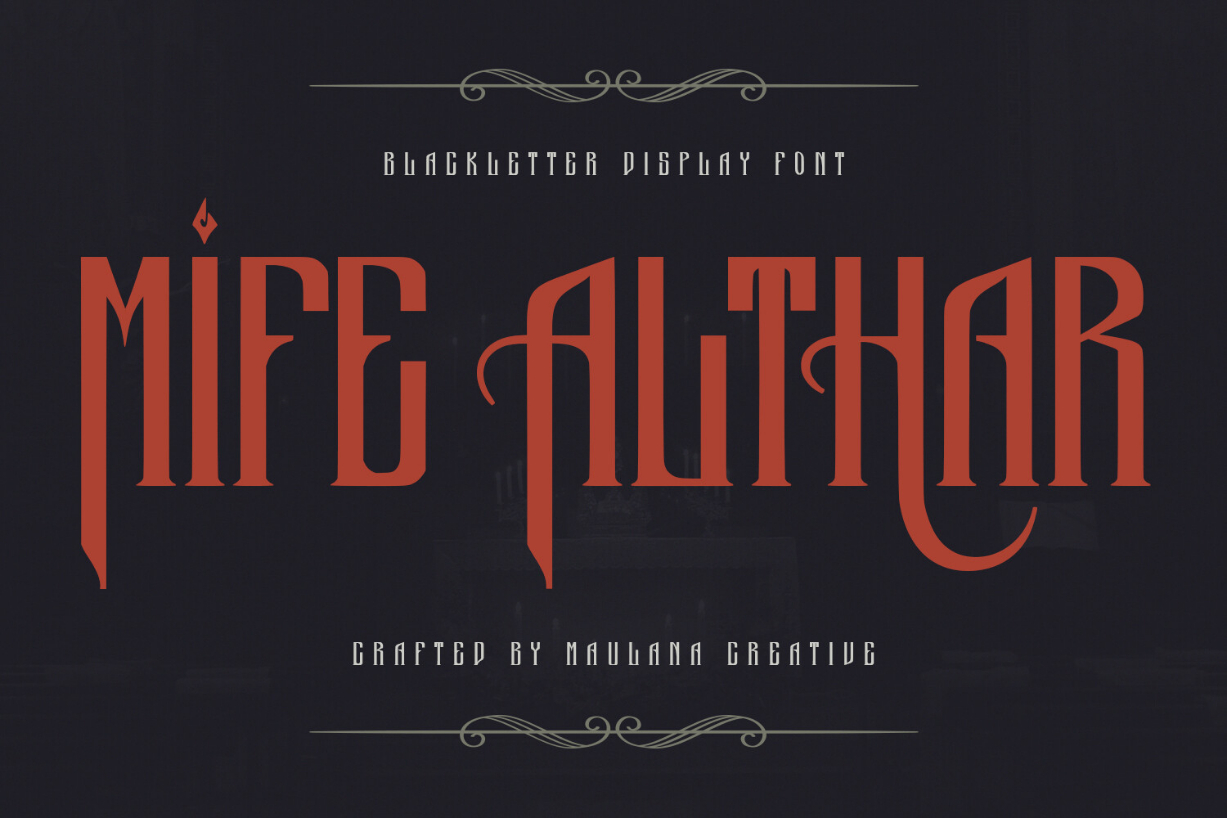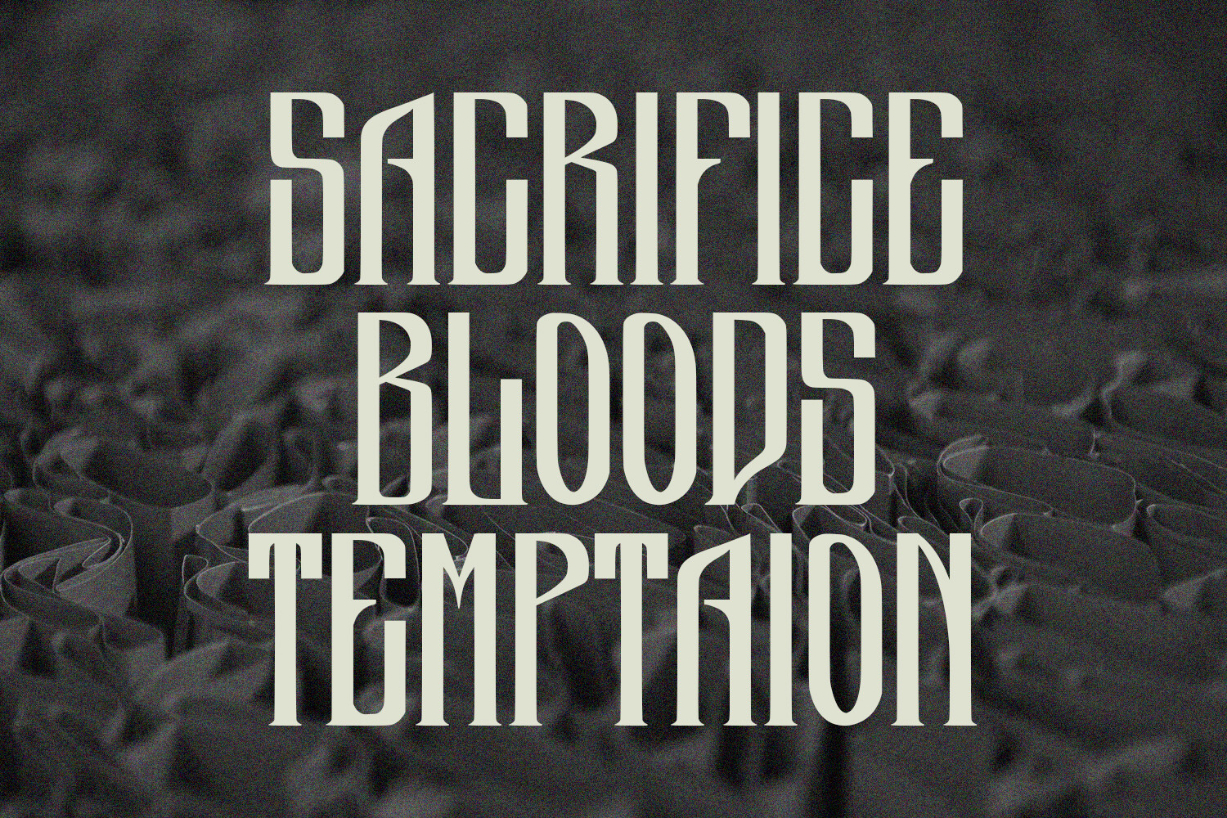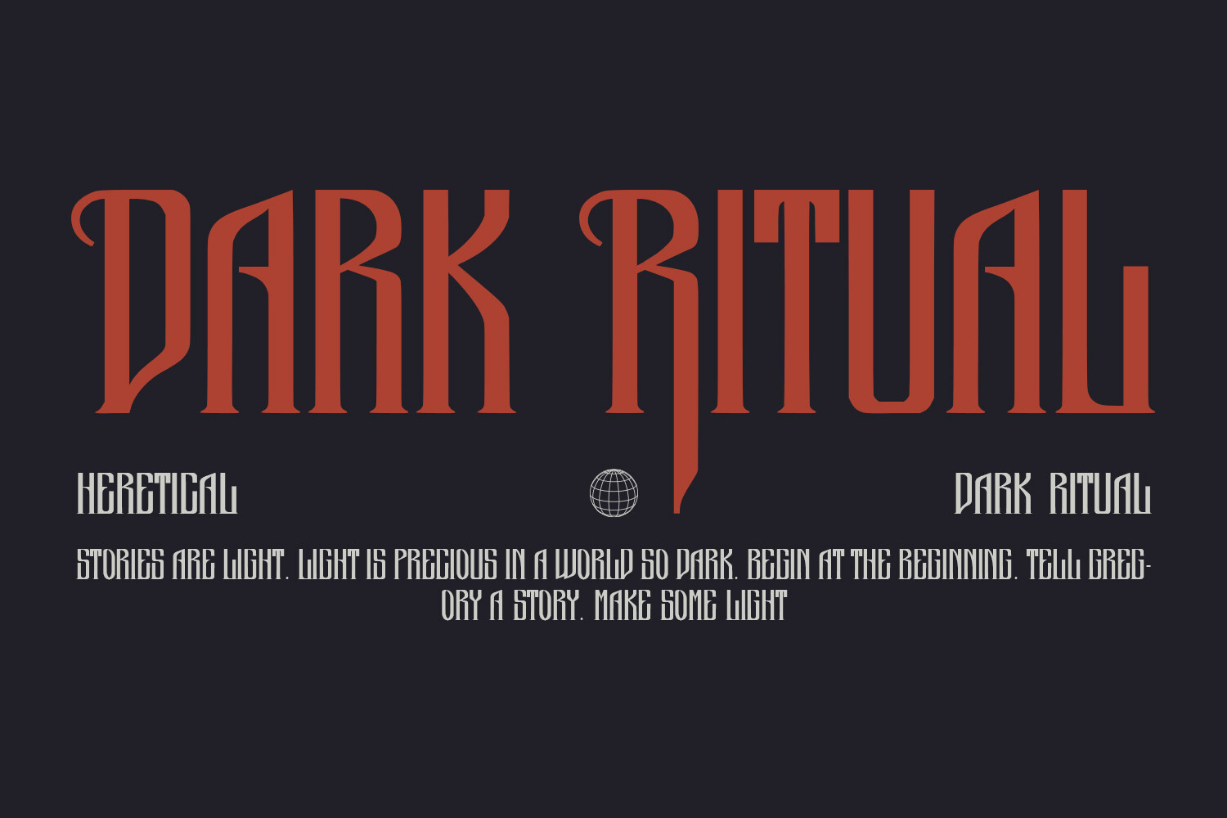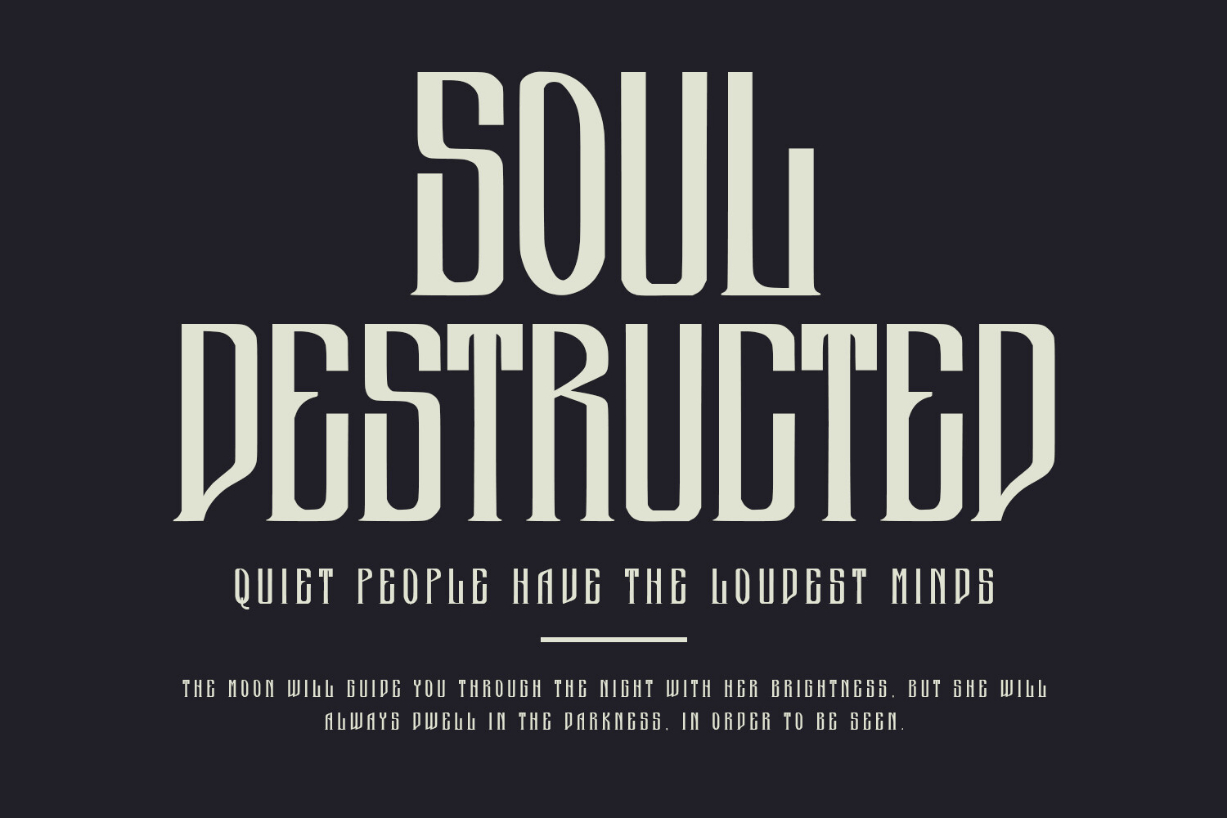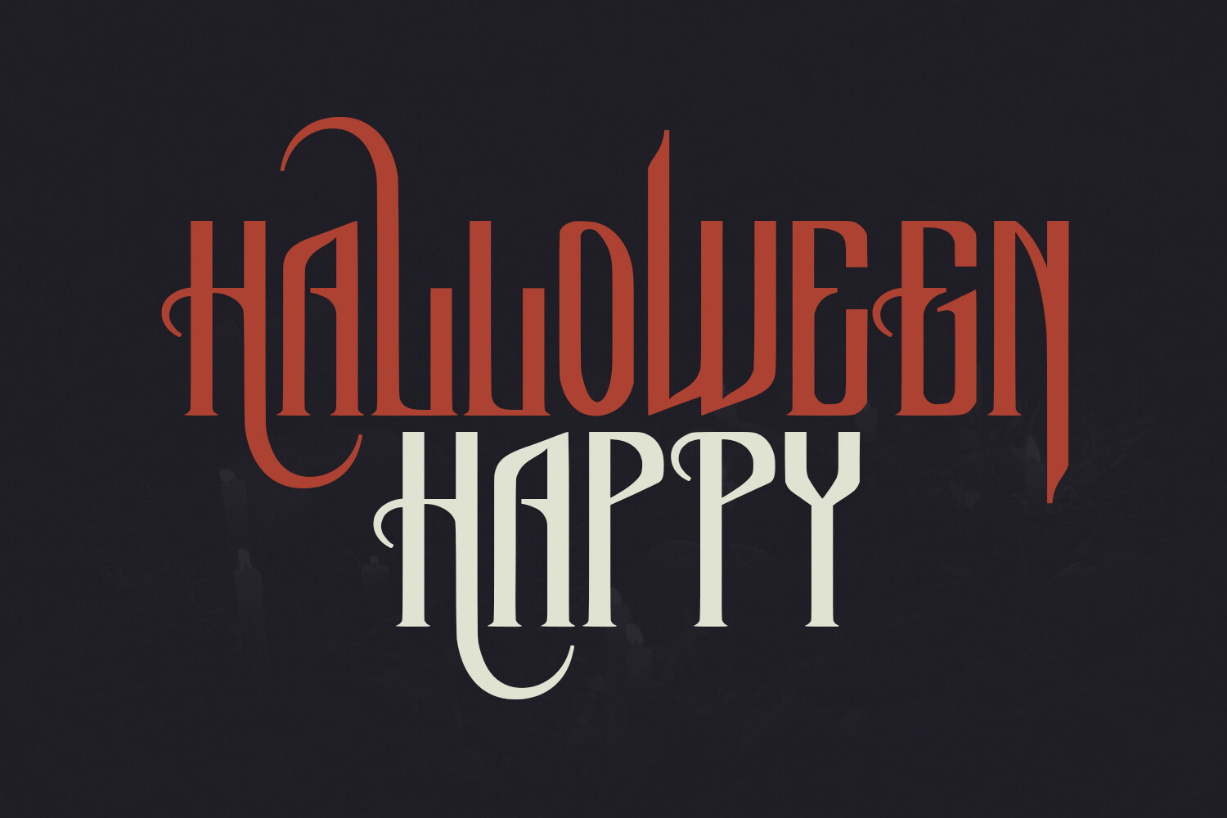
Mife Althar Font
About Mife Althar Font
Mife Althar Blackletter Display Font
Mife Althar Blackletter Font is a handmade Modern Victorian hand lettering, which combines modern and classic typography with some awesome alternates. Yes, we are back to the early 1800s, bringing a classic touch to this decade.